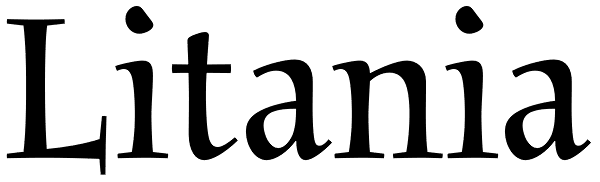
Litania
In medieval manuscripts, scribes often used varying shapes for the majuscules. The same letter could appear in different forms within the same word. This was a good solution for managing space, but scribes also seemed to really enjoy variety and...